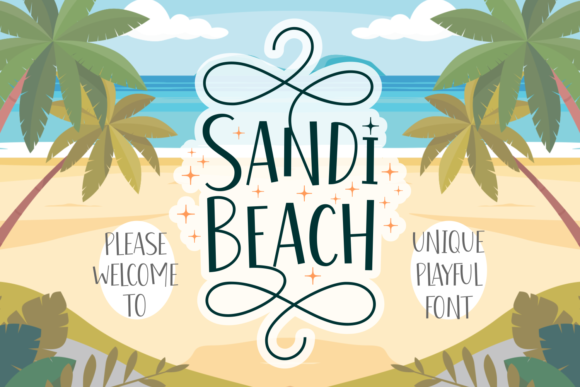
Sandi Beach: A Playful Font for Creative Workflows
Sandi Beach is a unique display font that brings a sense of playfulness and cuteness to any design project. Its soft curves and friendly appearance make it ideal for a wide range of creative applications, from quotes and banners to birthday cards and children-themed designs. Whether you're working on a marketing campaign, a personal project, or a business initiative, Sandi Beach can add a distinctive touch that captures attention and conveys warmth.
This sans serif font is particularly well-suited for projects that require a lighthearted and approachable tone. It works best in visual elements where readability and personality are important, such as posters, menus, and promotional materials. By incorporating Sandi Beach into your workflow, you can enhance the aesthetic appeal of your designs while maintaining clarity and professionalism.
Integrating Sandi Beach into Your Workflow
Understanding how to integrate Sandi Beach into your existing processes can help you maximize its benefits. Before starting a new project, consider the purpose and audience of your design. If your goal is to create something that feels fun and engaging, Sandi Beach could be an excellent choice. For example, if you're designing a menu for a children's cafรฉ, using this font can help set the right tone and attract the target demographic.
During the design process, it's important to experiment with different fonts and layouts. Sandi Beach may not be suitable for large blocks of text, but it shines in headlines, logos, and short phrases. When using it in digital tools like Adobe Illustrator or Canva, you can adjust the size and spacing to ensure it looks clean and professional. Always test your designs across different platforms to ensure consistency and legibility.
After completing a project, take time to review how Sandi Beach performed in the context of your overall design. Did it enhance the message or distract from it? Were there any technical issues with compatibility or rendering? These insights can help you refine your use of the font in future projects and improve your overall design strategy.
Practical Use Cases for Sandi Beach
Sandi Beach is versatile enough to fit into various creative scenarios. One common use is in social media content, where eye-catching text can increase engagement. For instance, when creating a post for a toy store or a birthday celebration, using this font can make your message more visually appealing and memorable. Pairing it with bold colors or playful graphics can further enhance its impact.
Another effective application is in print materials such as flyers, brochures, and business cards. When designing these items, consider the context in which they will be used. If the design is meant for a family-oriented event or a child-friendly product, Sandi Beach can add a charming element that resonates with the audience. However, if the design is for a more formal setting, it may be better to choose a more traditional font.
In addition to visual design, Sandi Beach can also be used in branding and identity work. For businesses targeting younger audiences or those looking to convey a sense of fun and creativity, this font can help establish a consistent brand voice. It's important to maintain a balance between creativity and professionalism, ensuring that the font aligns with the overall brand image and messaging.
Compatibility and Technical Considerations
When using Sandi Beach in your workflow, it's essential to consider its compatibility with different software and platforms. Most design tools support standard font formats, but it's always a good idea to check for any specific requirements or limitations. For example, if you're working with a web-based platform, ensure that the font is properly embedded or linked to avoid display issues.
Another factor to consider is the file size and performance of the font. While Sandi Beach is generally lightweight, it's important to optimize your files to ensure smooth performance, especially when working with large projects or multiple design elements. Using font management tools can help streamline this process and keep your design assets organized.
Additionally, think about how Sandi Beach will look in different sizes and resolutions. Testing it at various scales can help you identify any potential issues with readability or clarity. This is particularly important when using the font in digital media, where users may view your content on a variety of devices and screen sizes.
Enhancing Creativity with Sandi Beach
Using Sandi Beach can be a great way to spark creativity and bring a fresh perspective to your work. Its playful nature can inspire new ideas and encourage experimentation with different design elements. For example, when working on a children's book or a marketing campaign, incorporating this font can help you break away from conventional design approaches and explore more expressive options.
It's also useful to pair Sandi Beach with other fonts and design elements to create a cohesive look. Combining it with a more structured typeface can add contrast and balance, making your designs more dynamic and visually interesting. Experimenting with color schemes, textures, and layout structures can further enhance the overall impact of your work.
Finally, don't forget to consider the emotional response that Sandi Beach can evoke. Its friendly and approachable style can help build a connection with your audience, making your designs more relatable and engaging. By thoughtfully integrating this font into your workflow, you can create more meaningful and impactful visual experiences.